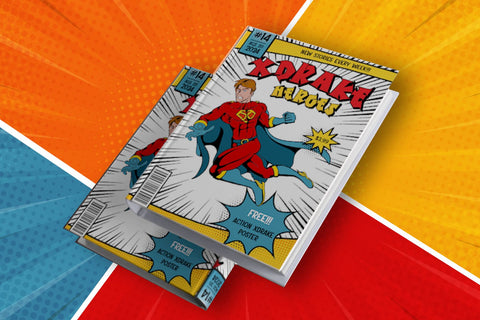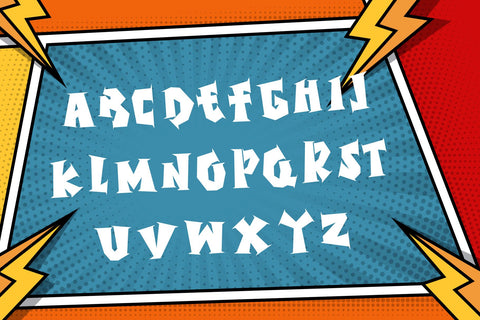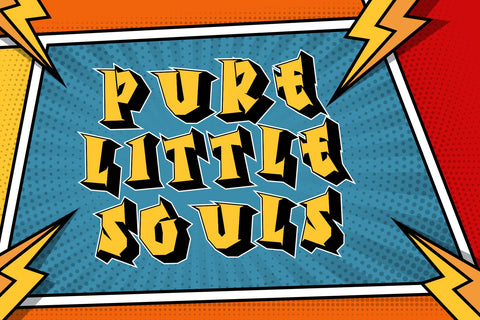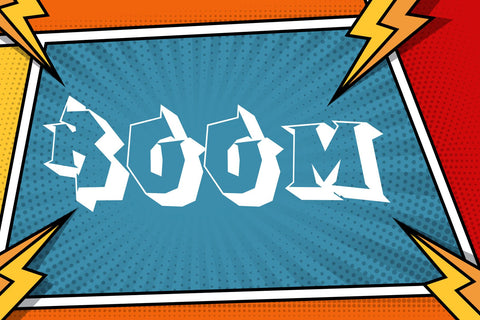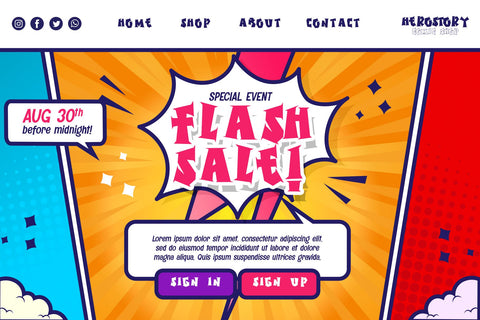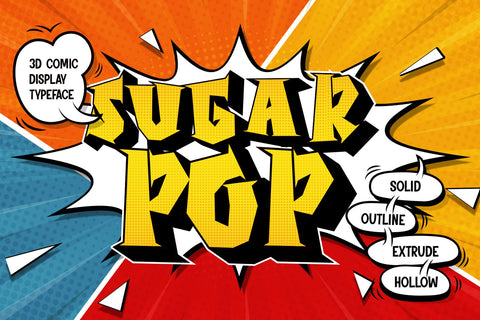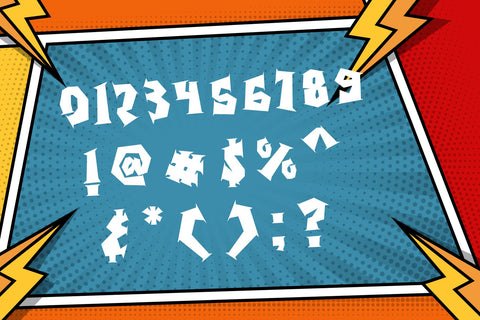
Sugar Pop - 3D layered Comic Display Font
Sugar Pop is an energetic 3D display font inspired by the playful and vibrant aesthetics of comic book art. This font is designed to bring a lively, dynamic feel to any project, making it an excellent choice for a variety of creative applications. Sugar Pop includes four distinct font styles: Solid, Outline, Extrude, and Hollow, each offering a unique way to add depth and character to your designs.